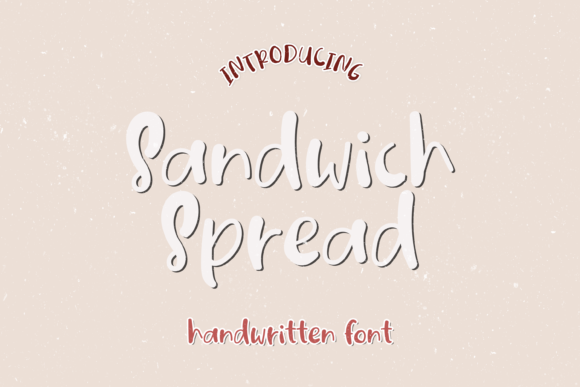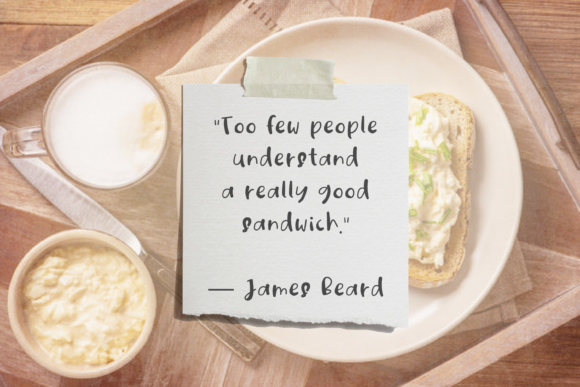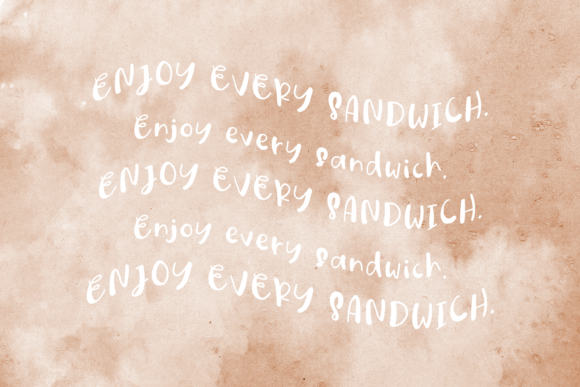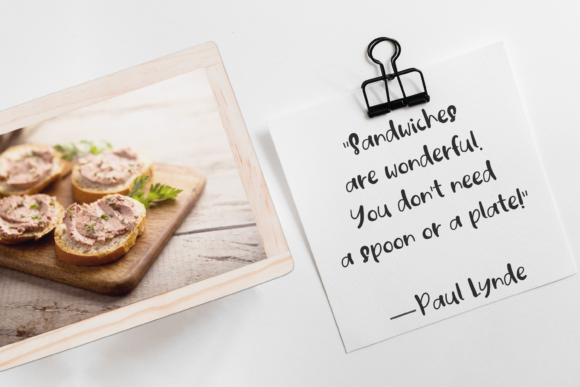
About Sandwich Spread Font
The Sandwich Spread is a delightful and charming handwritten font that adds a touch of playfulness and character to any design project. With its neat and cursive feel, this font brings a unique and distinct look to your designs, making them stand out from the crowd.
The clean and legible nature of The Sandwich Spread makes it versatile and suitable for a wide range of design projects. Whether you’re creating logos, packaging, invitations, posters, or social media graphics, this font adds a touch of cuteness and whimsy that instantly grabs attention.
The cursive style of The Sandwich Spread gives it a sense of fluidity and movement, as if the letters are dancing on the page. This adds a dynamic and energetic feel to your designs, making them visually engaging and captivating.
The versatility of The Sandwich Spread allows it to be used in various design themes and contexts. Its cute and handwritten appearance makes it ideal for projects targeting a younger audience or those that aim to convey a fun and lighthearted message. It can also be used to add a playful touch to more sophisticated or minimalist designs, creating an interesting contrast and adding visual interest.
Whether you’re designing for a food-related project, a children’s book, a blog, or any other creative endeavor, The Sandwich Spread adds a touch of personality and character that instantly brings your designs to life. Its neat and cursive look creates a warm and friendly atmosphere, making it a great choice for designs that require a personal and approachable feel.
The charm of The Sandwich Spread lies in its simplicity and handwritten style. It captures the essence of casual, handwritten notes or doodles, giving your designs an authentic and genuine touch. Its neat and well-crafted letterforms make it easy to read, ensuring that your message is conveyed effectively.
Embrace the unique and cursive feel of The Sandwich Spread to transform your design projects into standout creations. Let its neat and cute handwritten style inspire your creativity and bring a touch of playfulness to your designs. With The Sandwich Spread, every design becomes a delightful and captivating experience.